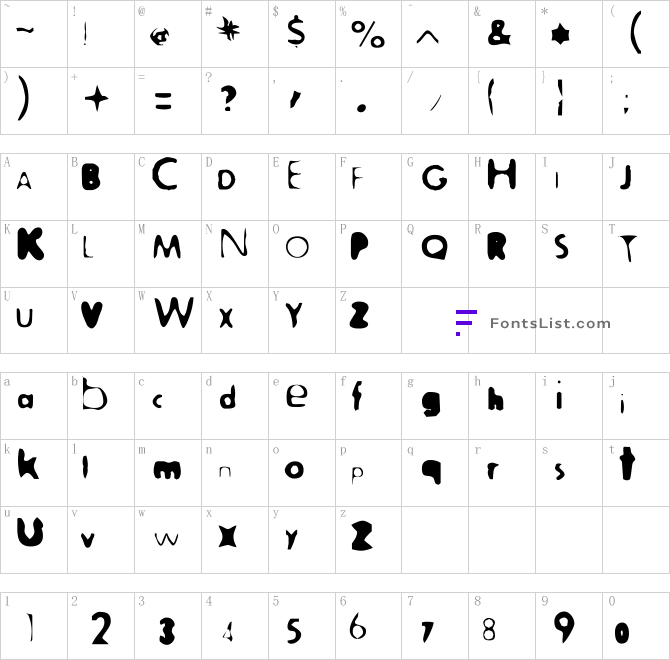
- Font Name:Adolescence
Adolescence.ttf is a very beautiful artistic font, Adolescence.ttf is widely used in the design and printing of various books and pictures,Adolescence.ttf has a strong visual impact,Adolescence.ttf is a commonly used font in newspapers, magazines and books, and is used in posters, e-commerce Poster design, store design, logo design, font design and other fields.Adolescence.